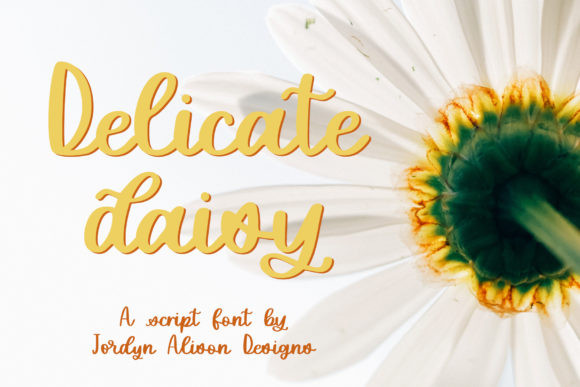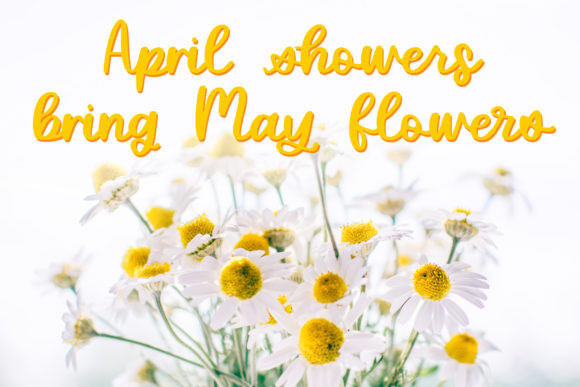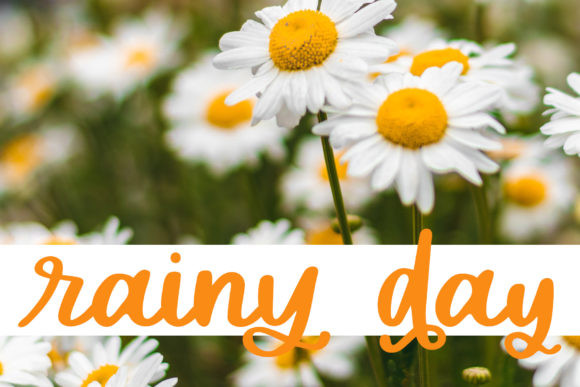
Delicate Daisy Font
Delicate Daisy is a cute and casual script font with an incredibly friendly feel. Whether it’s for web, print, moving images or anything else this font will look spectacular.